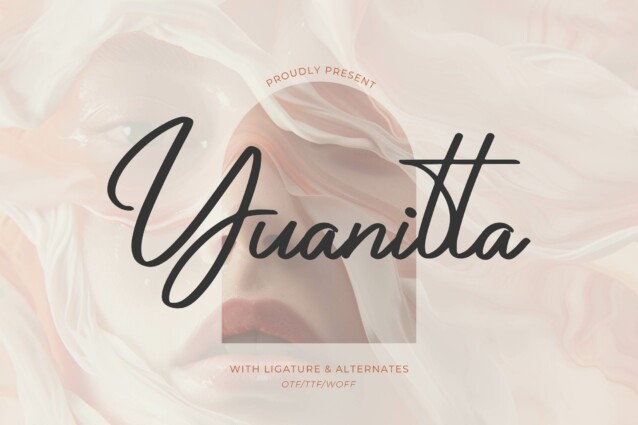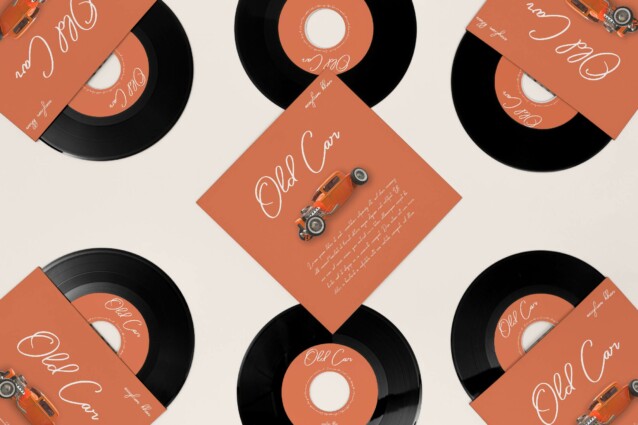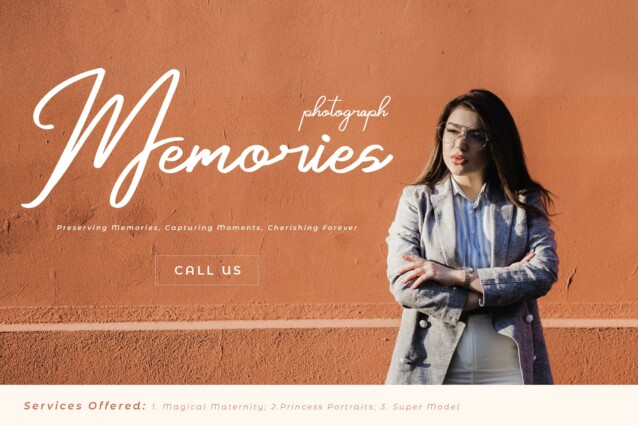
Yuanitta Font
Yuanitta Font is suitable for any projects such as: logos, branding projects, homeware designs, product packaging, mugs, quotes, posters, shopping bags, t-shirts, book covers, name card, invitation cards, greeting cards, label, photography, watermark, special events, and all your other lovely projects that need a beautiful script taste.